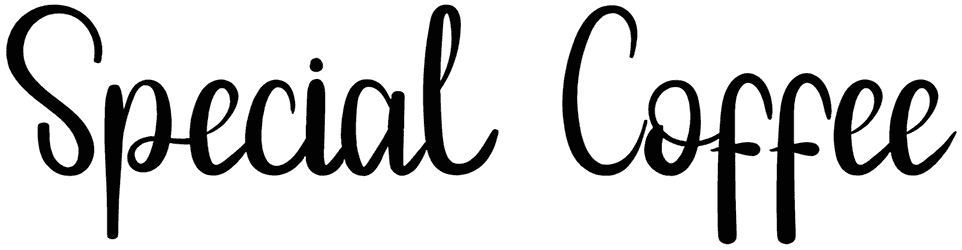
Special Coffee Font
Special Coffee is like a chameleon that can take on any character, mood, or tone. This script font can always look professional while maintaining its sense of elegance.
The beauty of this coffee font lies in its power to convey personal messages in various formats, such as greeting cards, invitations, and albums, which is a way to capture the essence of a message. So, if you want to enhance the sense of your words, we suggest you try Special Coffee.